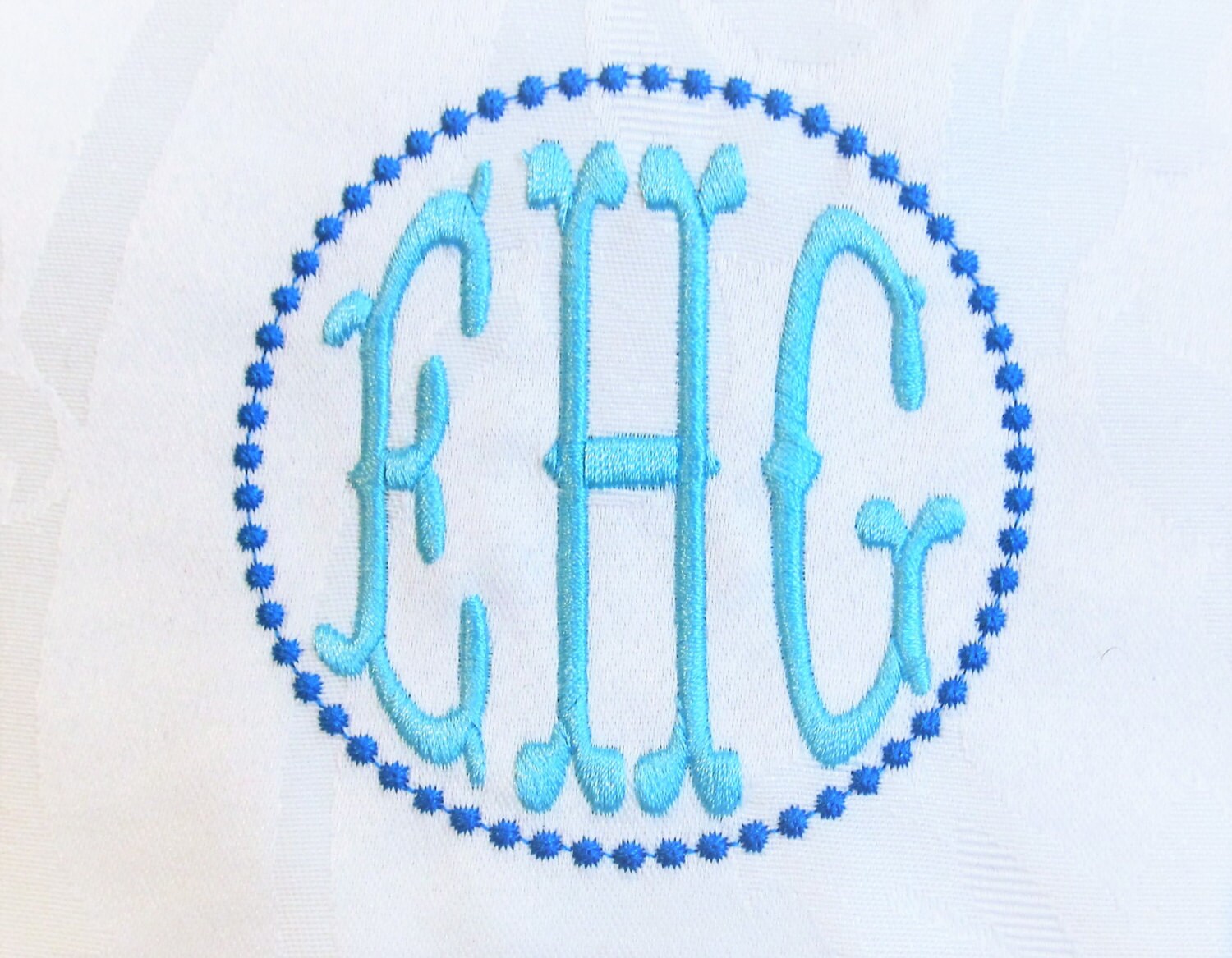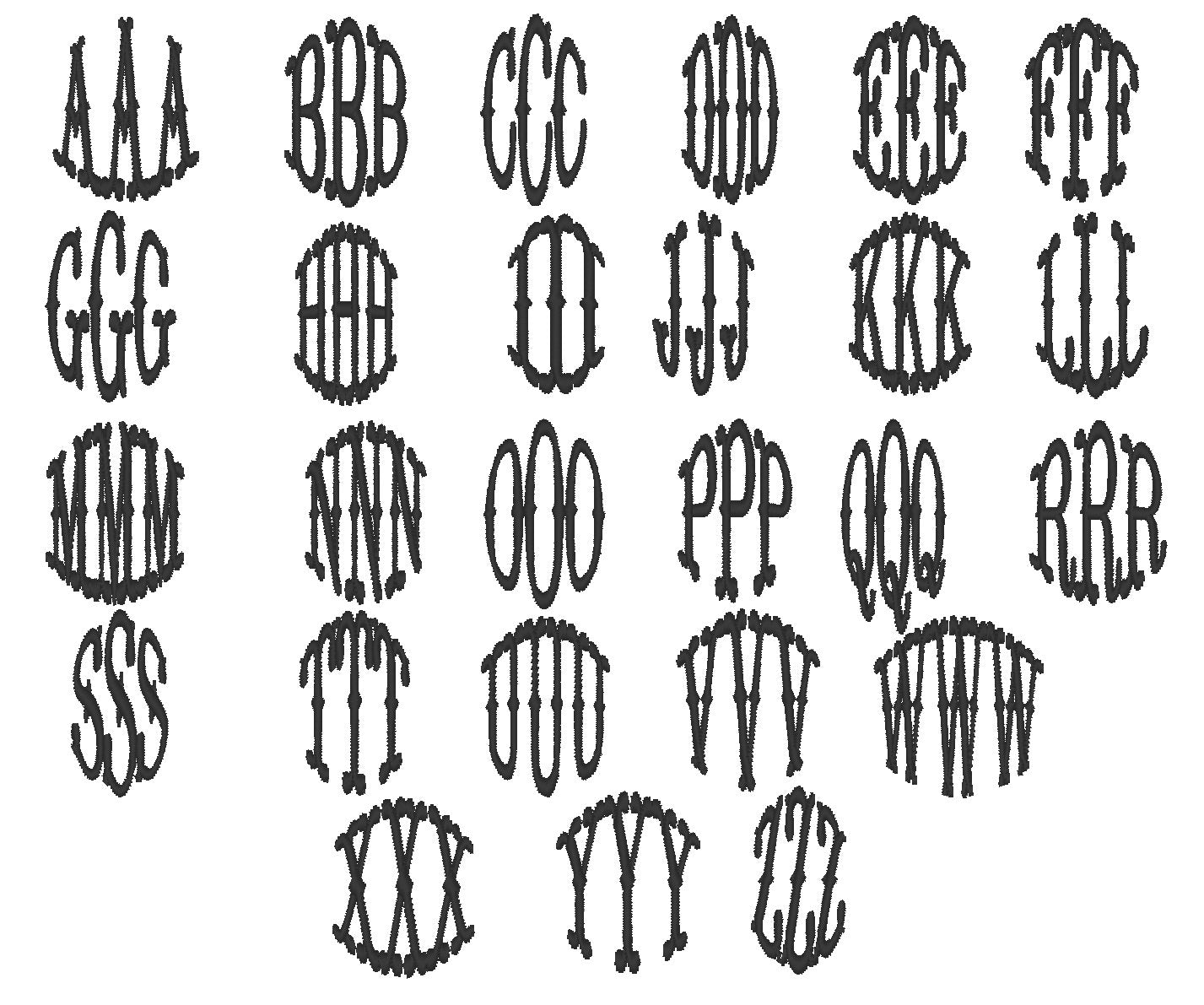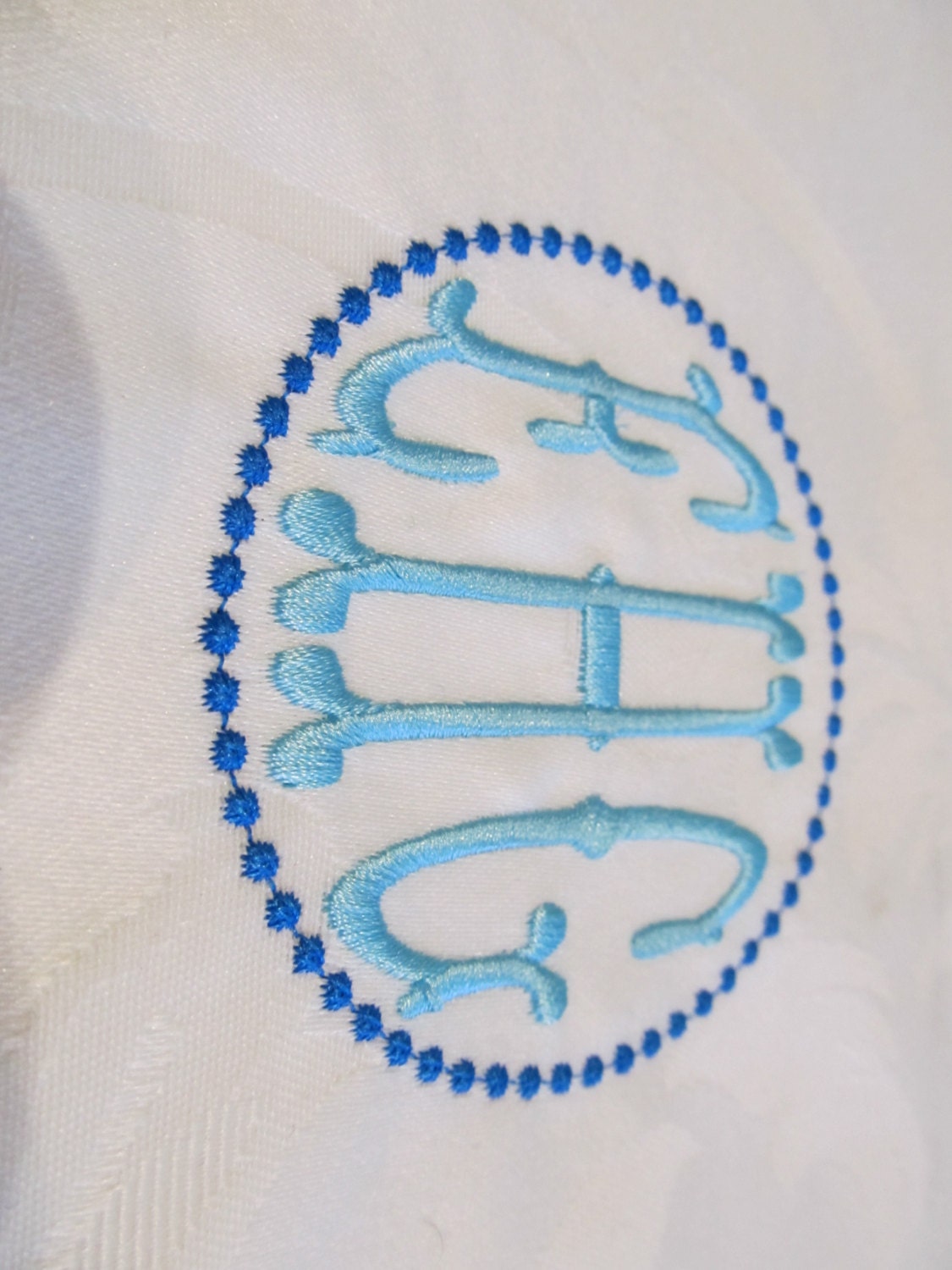
Or click to open the linkA three-letter fishtail circle monogram in satin stitch, with a pearl circle frame. A classic wedding gift for towels, pillows and linens.
78 uppercase letters: left, center and right, A to Z, for a full three-letter monogram. The monogram comes in seven sizes: 0.9, 1.3, 1.8, 2.2, 2.7, 3.3 and 4.4 inches, with a matching pearl circle for each.